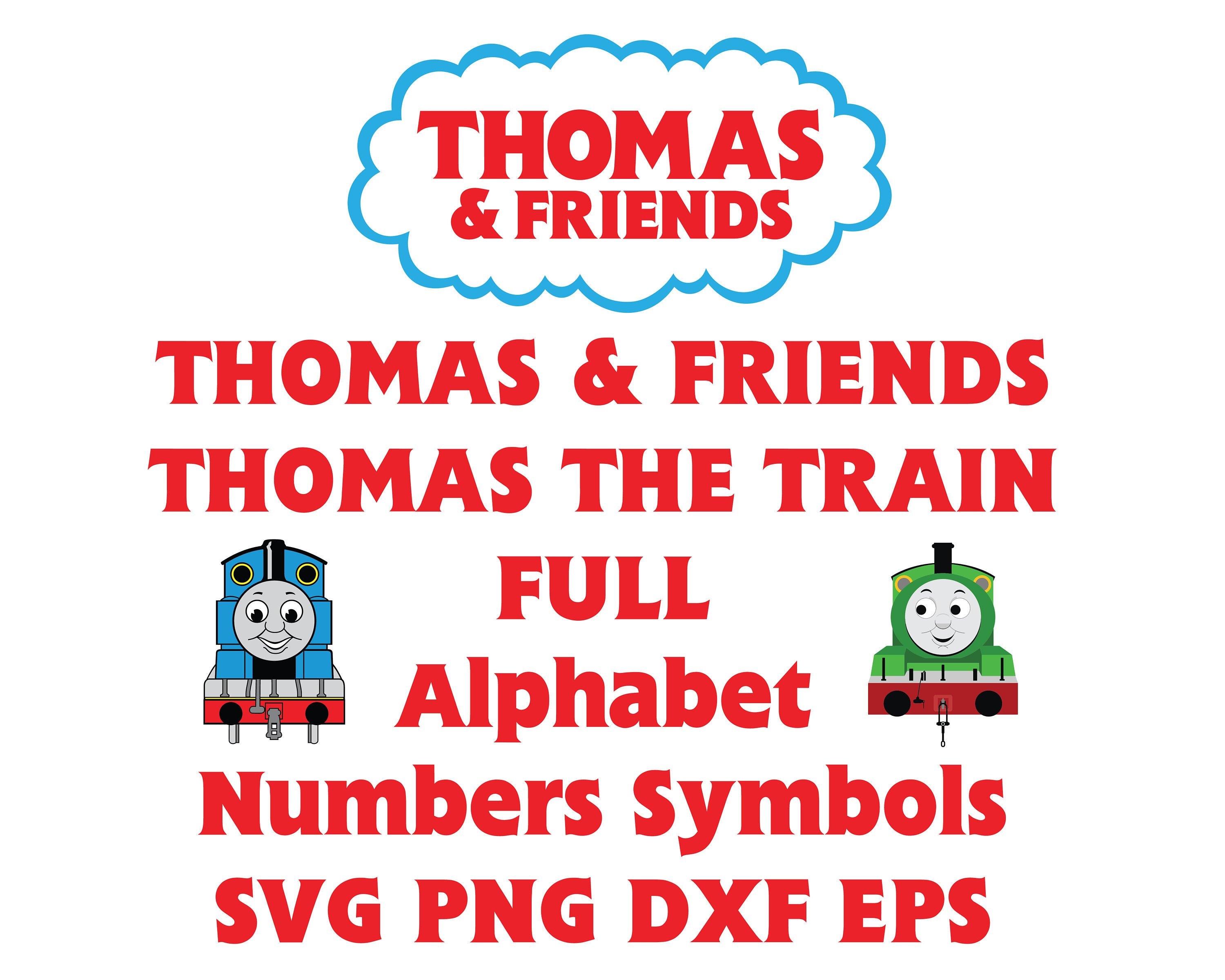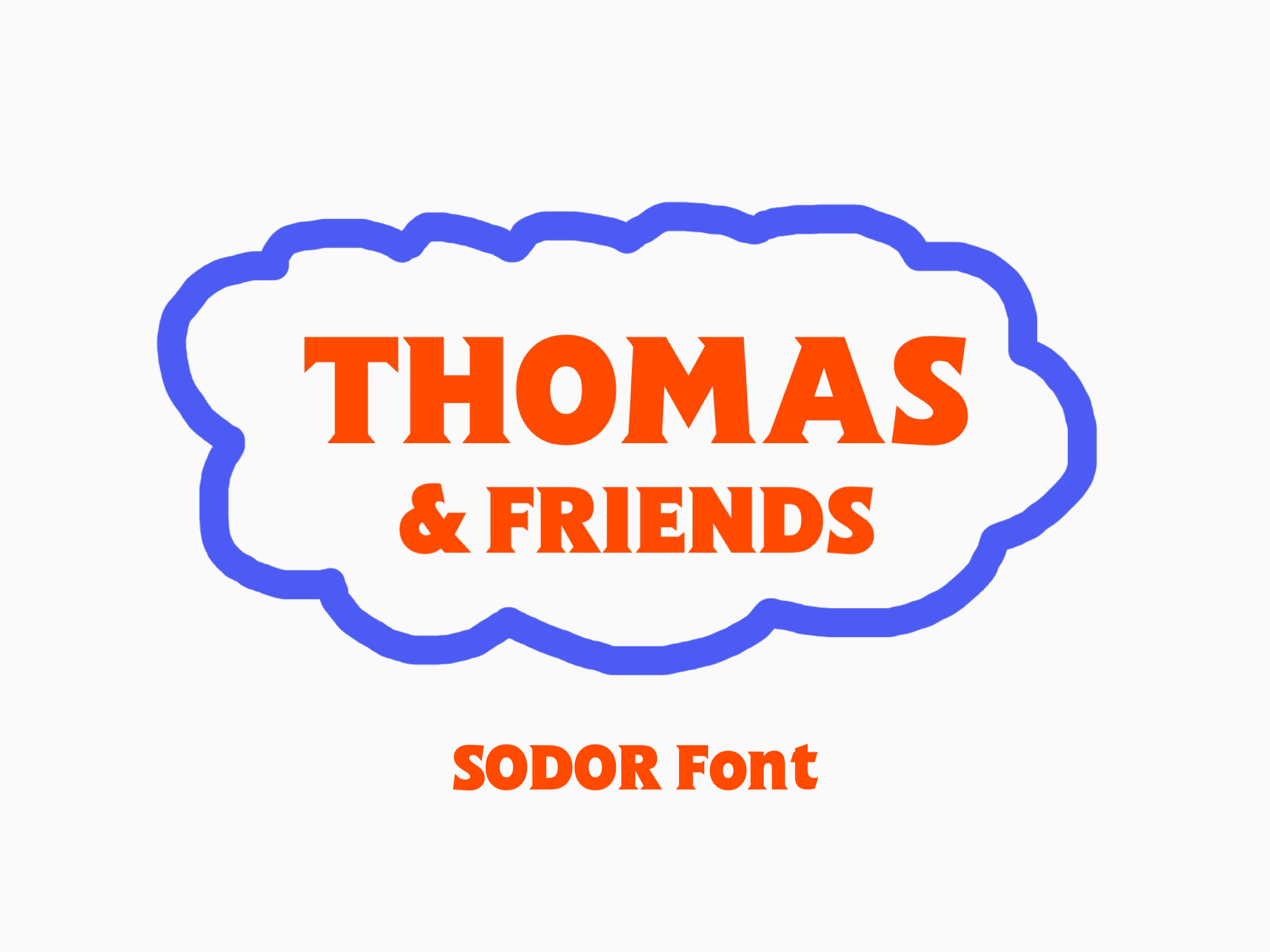
Thomas And Friends Font - Learn about the flange bq bold font used in the logo of the popular children's tv show thomas and friends. Download flange bq bold font, the logo font of the popular children's cartoon thomas and friends. Learn more about the font and see. This font is free for personal and. Find out the font name and source of the thomas & friends logo, a glyphic serif font called flange bq bold.
Learn more about the font and see. Download flange bq bold font, the logo font of the popular children's cartoon thomas and friends. Learn about the flange bq bold font used in the logo of the popular children's tv show thomas and friends. Find out the font name and source of the thomas & friends logo, a glyphic serif font called flange bq bold. This font is free for personal and.
This font is free for personal and. Learn more about the font and see. Download flange bq bold font, the logo font of the popular children's cartoon thomas and friends. Learn about the flange bq bold font used in the logo of the popular children's tv show thomas and friends. Find out the font name and source of the thomas & friends logo, a glyphic serif font called flange bq bold.
Find out the font name and source of the thomas & friends logo, a glyphic serif font called flange bq bold. Learn about the flange bq bold font used in the logo of the popular children's tv show thomas and friends. Learn more about the font and see. Download flange bq bold font, the logo font of the popular children's.
Download flange bq bold font, the logo font of the popular children's cartoon thomas and friends. Learn about the flange bq bold font used in the logo of the popular children's tv show thomas and friends. Find out the font name and source of the thomas & friends logo, a glyphic serif font called flange bq bold. Learn more about.
Learn about the flange bq bold font used in the logo of the popular children's tv show thomas and friends. Find out the font name and source of the thomas & friends logo, a glyphic serif font called flange bq bold. This font is free for personal and. Learn more about the font and see. Download flange bq bold font,.
Learn about the flange bq bold font used in the logo of the popular children's tv show thomas and friends. Learn more about the font and see. Download flange bq bold font, the logo font of the popular children's cartoon thomas and friends. This font is free for personal and. Find out the font name and source of the thomas.
This font is free for personal and. Learn about the flange bq bold font used in the logo of the popular children's tv show thomas and friends. Learn more about the font and see. Find out the font name and source of the thomas & friends logo, a glyphic serif font called flange bq bold. Download flange bq bold font,.
Download flange bq bold font, the logo font of the popular children's cartoon thomas and friends. Learn about the flange bq bold font used in the logo of the popular children's tv show thomas and friends. This font is free for personal and. Find out the font name and source of the thomas & friends logo, a glyphic serif font.
Learn about the flange bq bold font used in the logo of the popular children's tv show thomas and friends. Find out the font name and source of the thomas & friends logo, a glyphic serif font called flange bq bold. Learn more about the font and see. Download flange bq bold font, the logo font of the popular children's.
Learn about the flange bq bold font used in the logo of the popular children's tv show thomas and friends. Download flange bq bold font, the logo font of the popular children's cartoon thomas and friends. Learn more about the font and see. Find out the font name and source of the thomas & friends logo, a glyphic serif font.
Download flange bq bold font, the logo font of the popular children's cartoon thomas and friends. Learn more about the font and see. This font is free for personal and. Find out the font name and source of the thomas & friends logo, a glyphic serif font called flange bq bold. Learn about the flange bq bold font used in.
This font is free for personal and. Find out the font name and source of the thomas & friends logo, a glyphic serif font called flange bq bold. Learn more about the font and see. Download flange bq bold font, the logo font of the popular children's cartoon thomas and friends. Learn about the flange bq bold font used in.
Find Out The Font Name And Source Of The Thomas & Friends Logo, A Glyphic Serif Font Called Flange Bq Bold.
This font is free for personal and. Learn more about the font and see. Download flange bq bold font, the logo font of the popular children's cartoon thomas and friends. Learn about the flange bq bold font used in the logo of the popular children's tv show thomas and friends.